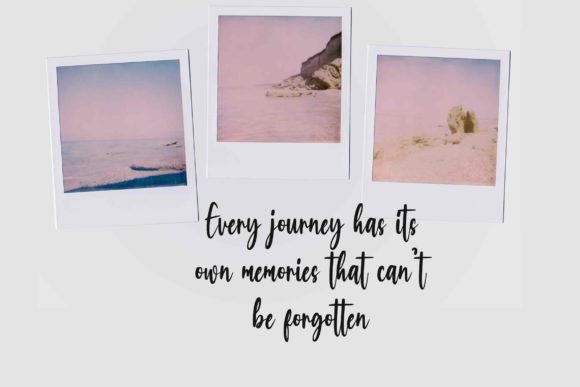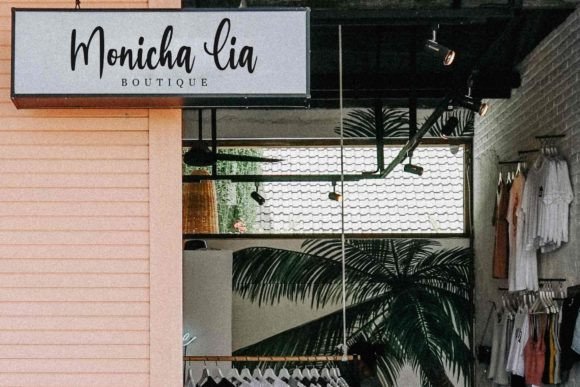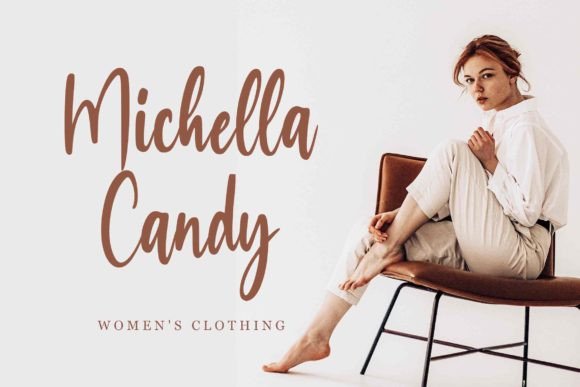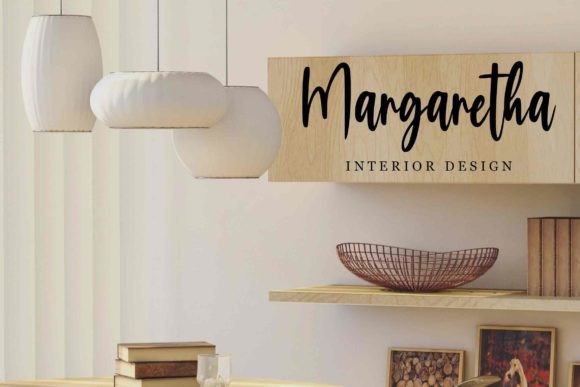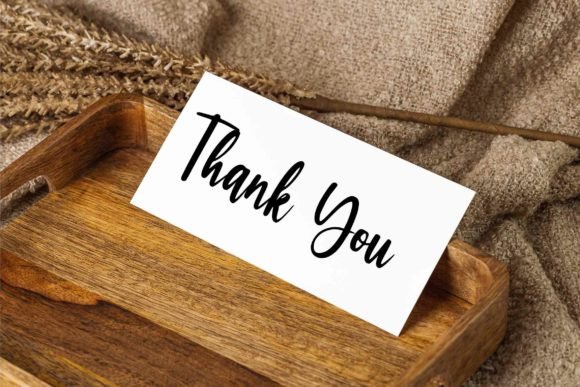
Introduction to Holylay Font
Holylay is an elegant and dainty handwritten font that features sweet and delicate characters.
This original look will appeal to a wide range of crafty ideas, from letterheads and titles to stationery .